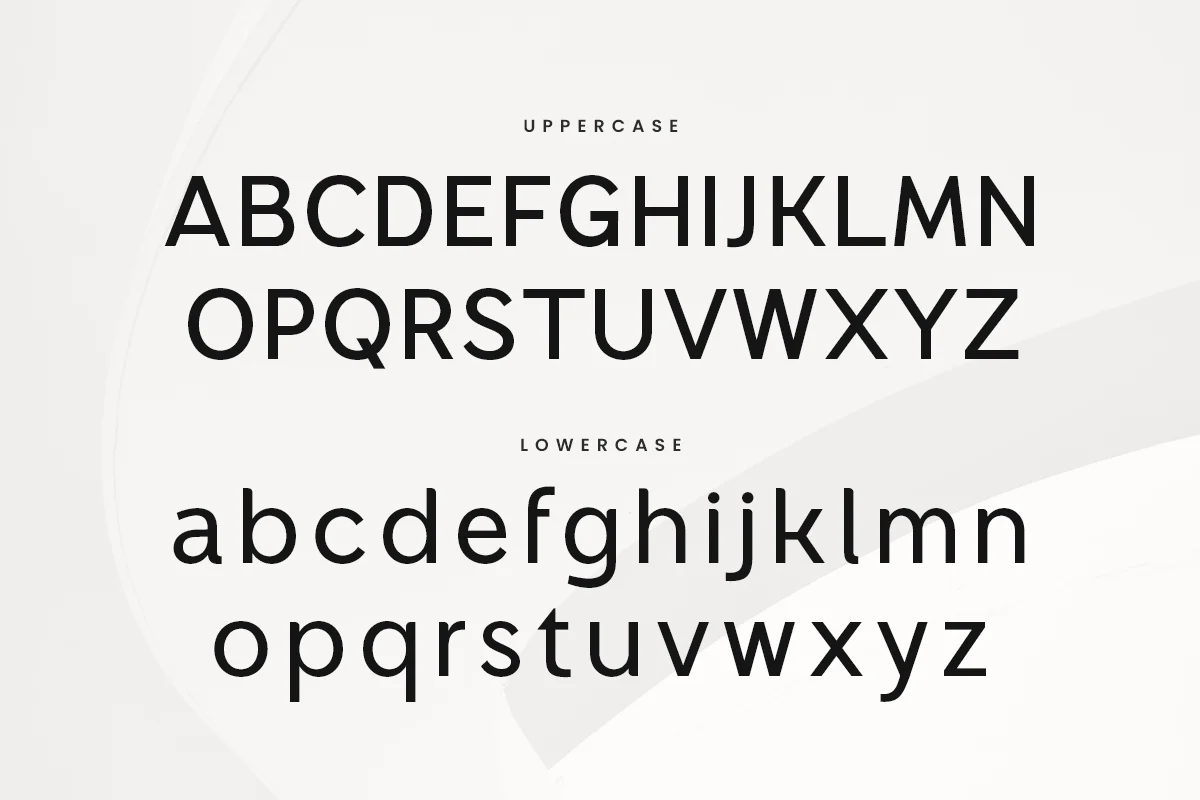
Montreal – Modern Logo Corporate Font
Introducing Montreal, a font crafted to bring a touch of modern elegance to corporate branding. With its sleek and professional design, Montreal is perfect for creating logos and branding materials that exude sophistication and contemporary style.
The Story Behind Montreal:
Montreal was inspired by the vibrant and cosmopolitan city it’s named after. Known for its blend of old-world charm and modern innovation, Montreal captures the essence of a dynamic business environment. Each character in Montreal is meticulously designed to reflect a balance of tradition and modernity, making it an ideal choice for corporate identities that want to stand out while maintaining a professional appearance.
Montreal Font Features:
- Available in 2 Styles: To Make the design perfect, we prepared for Regular and Italic Version.
- Modern Design: Sleek and minimalist, perfect for corporate and business use.
- Professional Aesthetics: Clean lines and elegant curves that convey sophistication.
- Versatile Usage: Ideal for logos, business cards, corporate presentations, and branding materials.
- High Legibility: Clear and sharp, ensuring your message is communicated effectively.
- Elegant Simplicity: Combines modern style with a professional look.
Perfect For:
- Corporate Branding: Create sleek and memorable logos for businesses and companies.
- Business Materials: Design elegant business cards, letterheads, and office stationery.
- Presentations: Develop polished and modern presentations for corporate meetings and pitches.
- Marketing Materials: Enhance brochures, flyers, and advertisements with a touch of elegance.
With Montreal, your corporate designs will achieve a new level of professionalism and style. Whether you're working on branding, marketing materials, or business presentations, Montreal provides the perfect blend of modern design and corporate sophistication. Elevate your brand with Montreal and make a lasting impression in the business world.